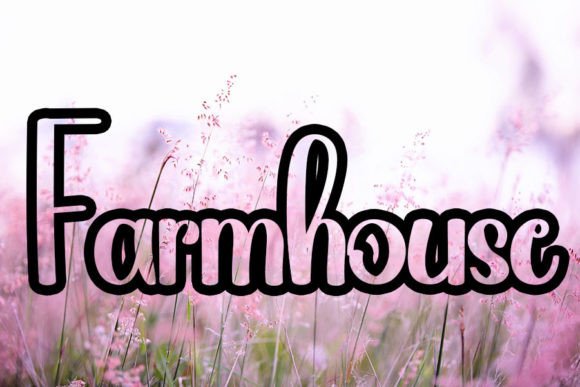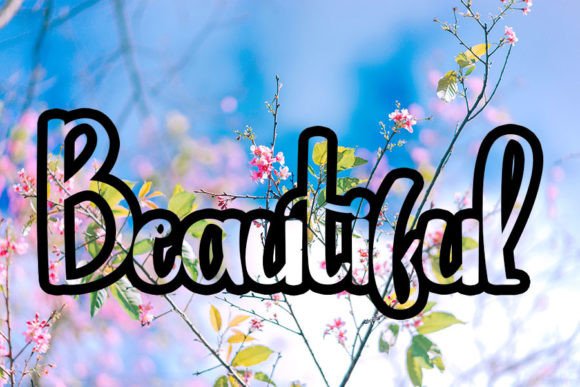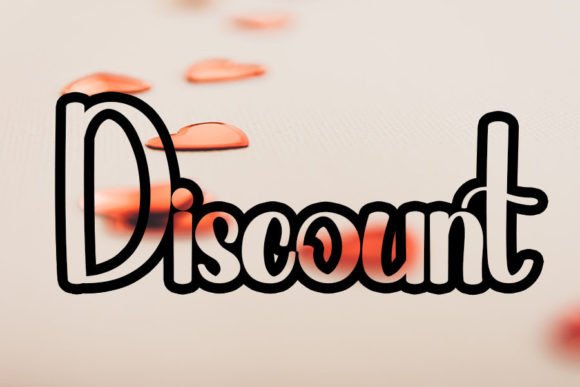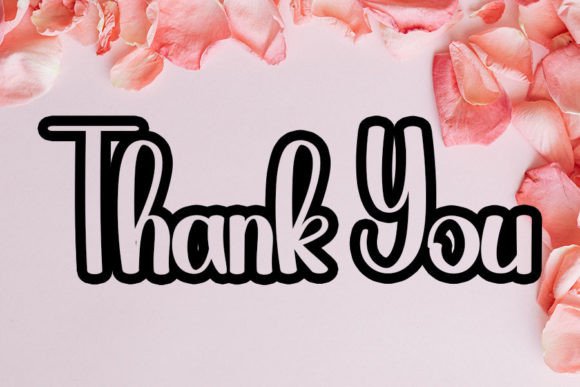
The Bonsai Font: A Timeless, Handwritten Masterpiece
I’ll never forget the moment I stumbled upon the Bonsai font. I was working on a project for a client who wanted a elegant, handwritten touch. I had spent hours scouring the internet for the perfect font, but nothing seemed quite right. That was until I saw Bonsai – its beautiful, flowing script immediately caught my eye. I fell in love with its incredibly distinct and timeless style, and I knew I had found the perfect fit for my project.
An Honest Review of Bonsai Font
- ✨ Elegant and sophisticated feel
- 💫 Beautifully crafted with an attention to detail
- 🎨 Versatile and perfect for a variety of design projects
While Bonsai is an amazing font, there are a few things to keep in mind. 🤔 For example, some users have reported issues with kerning, particularly when using the font at larger sizes. ⚠️ Additionally, the font may not be suitable for very long blocks of text, as it can become a bit overwhelming.
The Story Behind Bonsai Font
Bonsai is a carefully crafted font that’s designed to evoke a sense of elegance and sophistication. According to its creator, the font was inspired by the art of bonsai trees – the careful pruning and shaping of branches to create a beautiful, balanced form. This attention to detail and commitment to beauty is evident in every aspect of the font.
Q: What is the Bonsai font?
A: Bonsai is a beautiful, handwritten font with an elegant, sophisticated feel. It’s perfect for designs that need a touch of class and refinement.